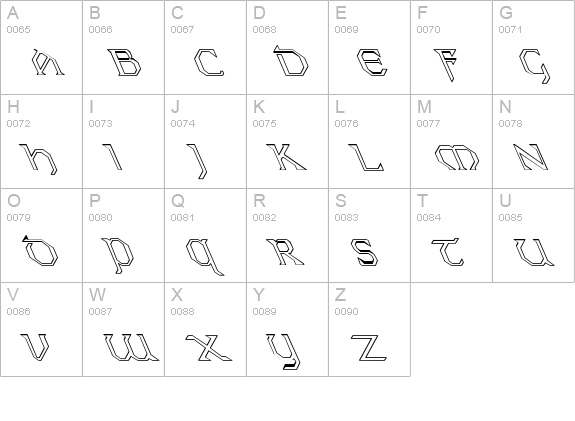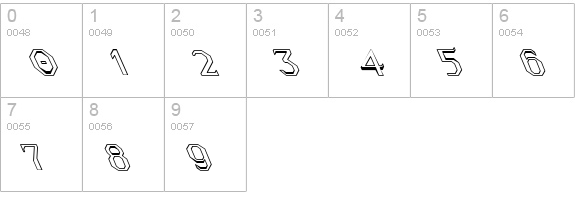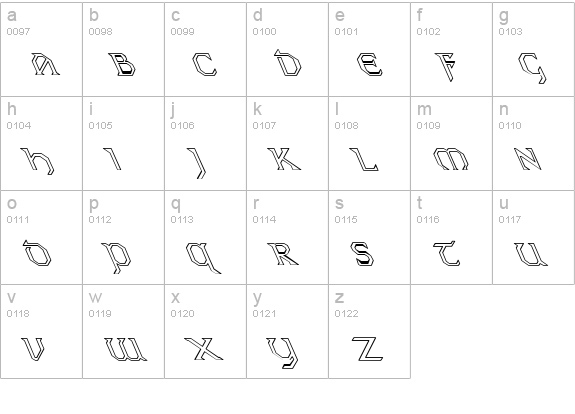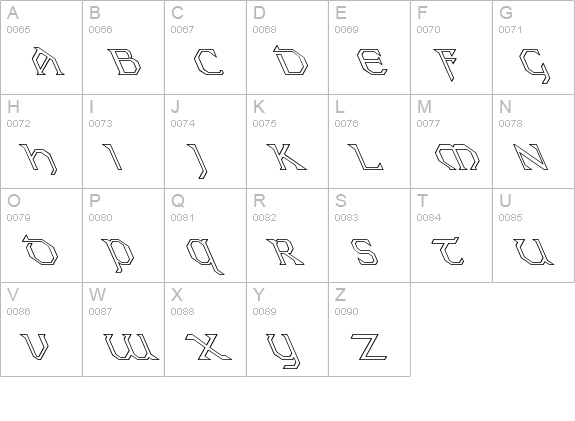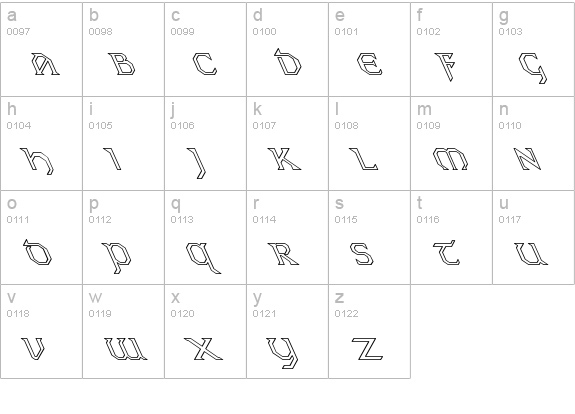
Eire Hollow Lefty font is a whimsical and charming typeface that exudes a playful and friendly vibe. The unique design of this font features exaggerated curves and thin lines, giving it a distinctive look that is perfect for projects that require a touch of creativity and originality. Eire Hollow Lefty font is ideal for adding a fun and quirky element to your designs, whether it be for invitations, posters, or branding materials. The best part about Eire Hollow Lefty font is that it is available for free download at FontsMarket.com. This means that you can easily access this delightful font and incorporate it into your projects without any hassle. With its endearing style and easy accessibility, Eire Hollow Lefty font is a must-have for anyone looking to add a touch of whimsy to their designs. Download it today and let your creativity shine with this charming typeface.